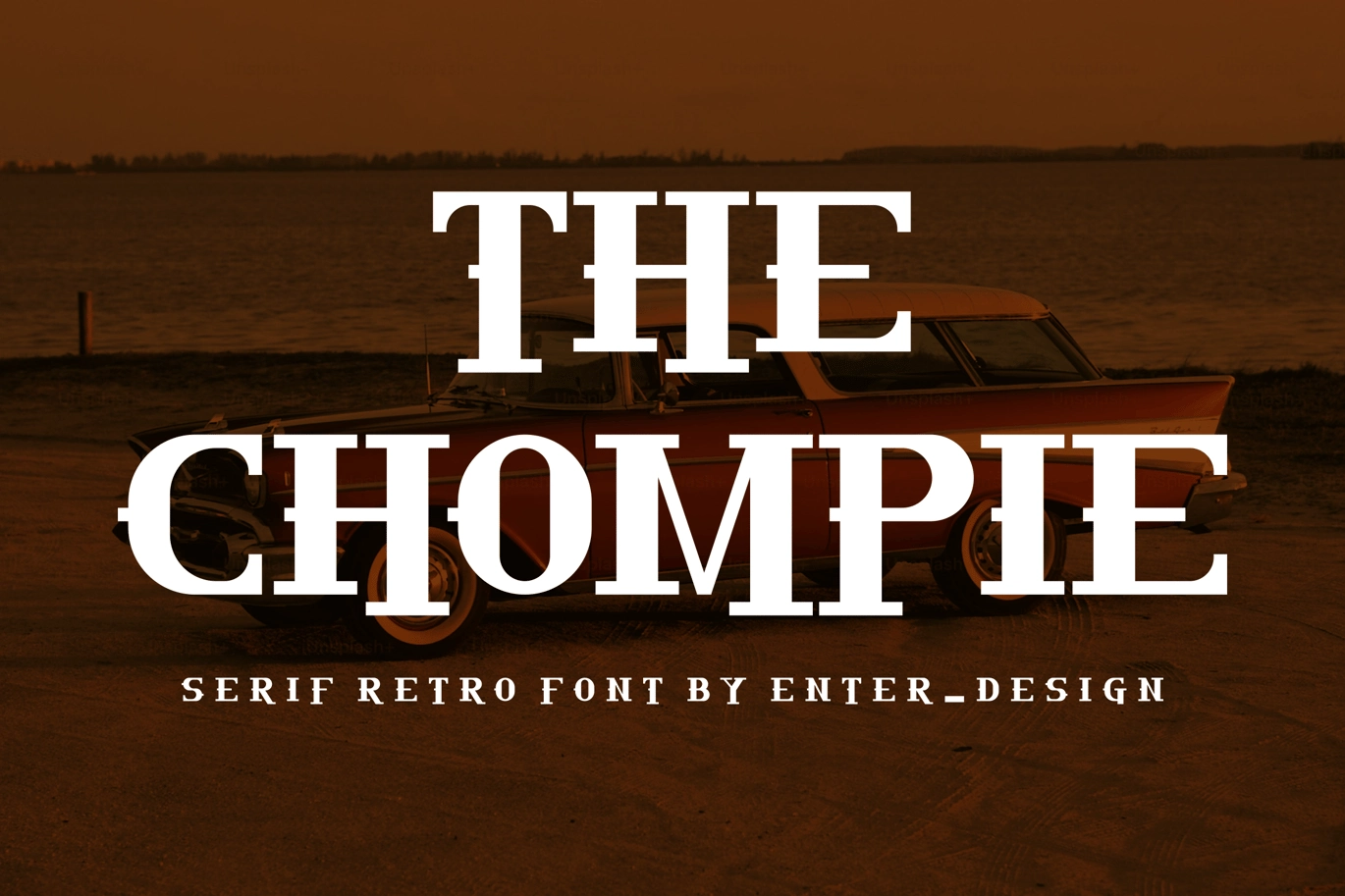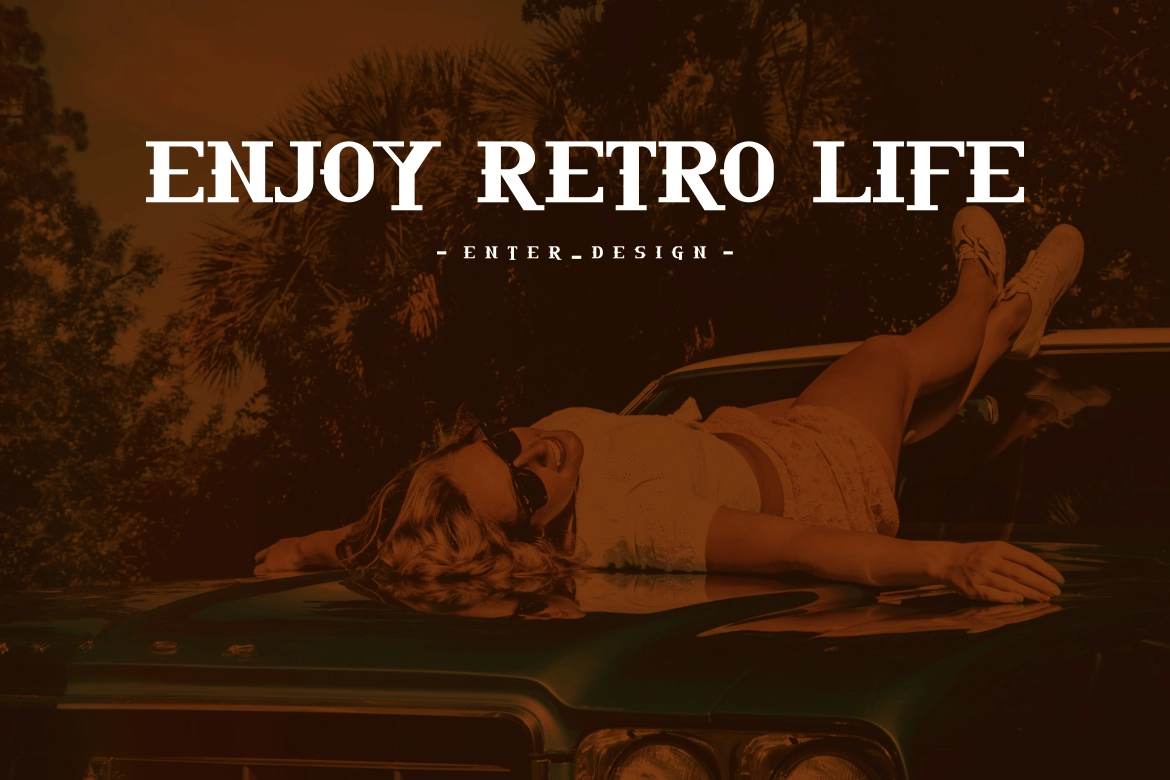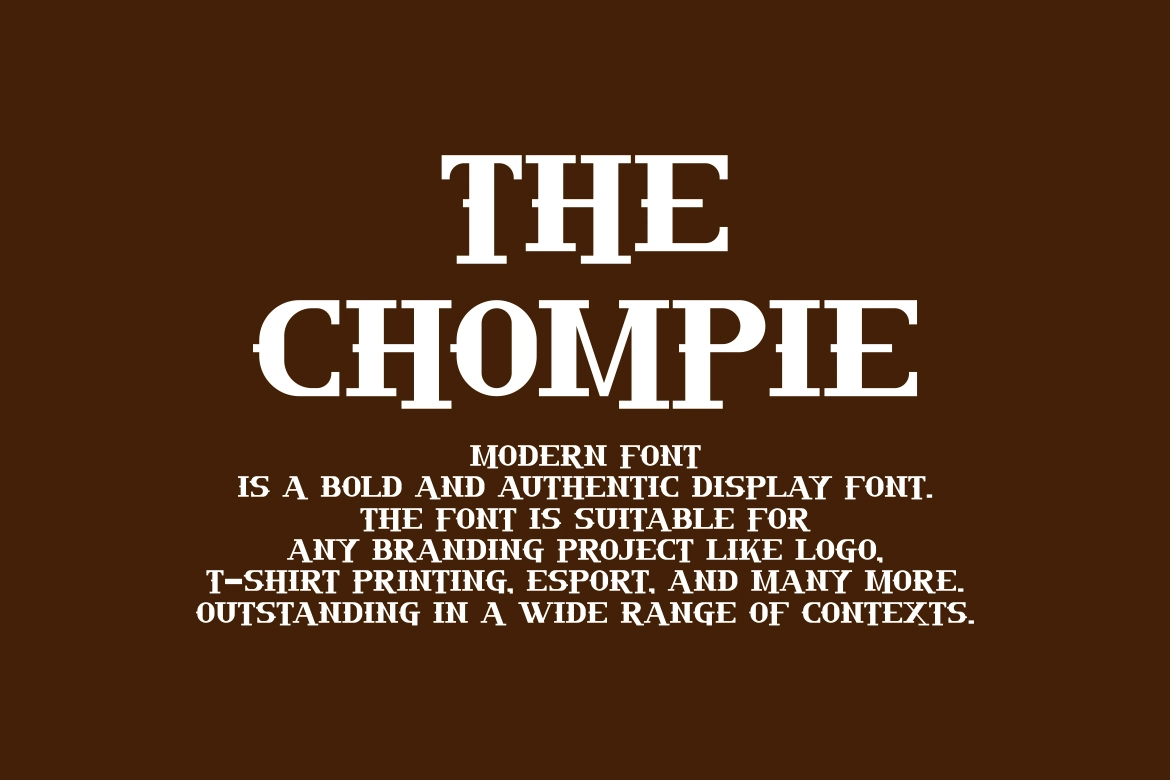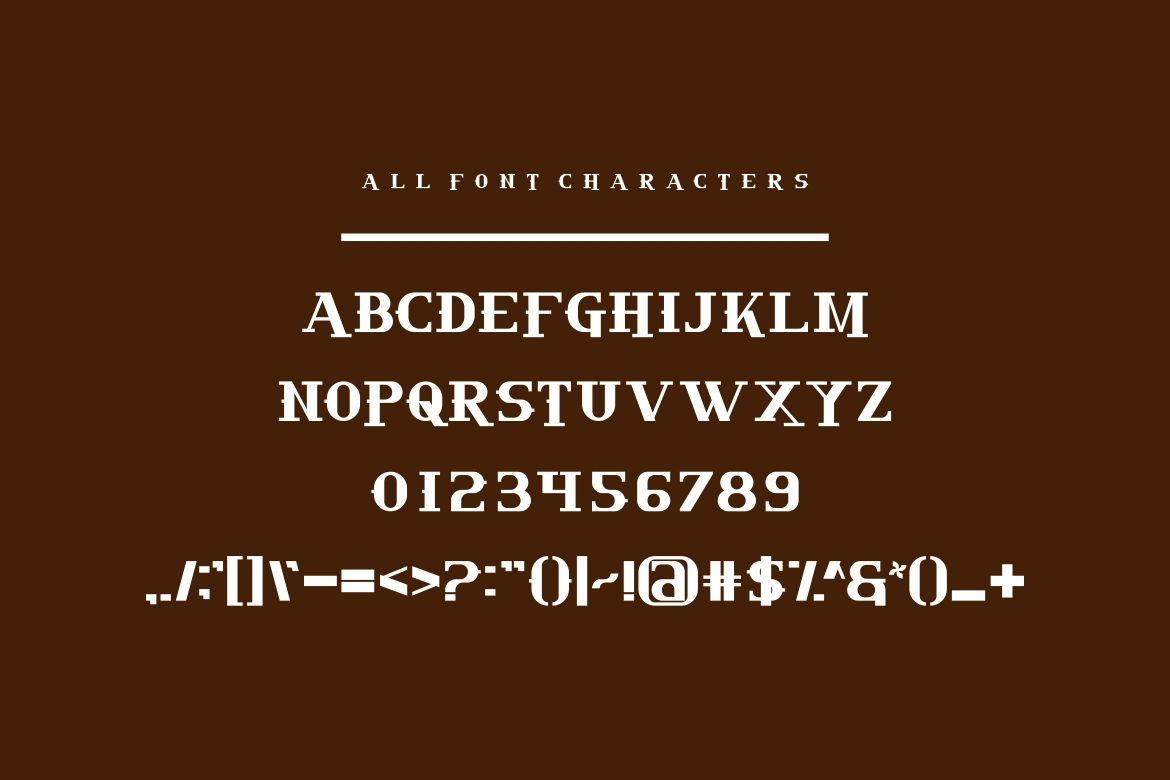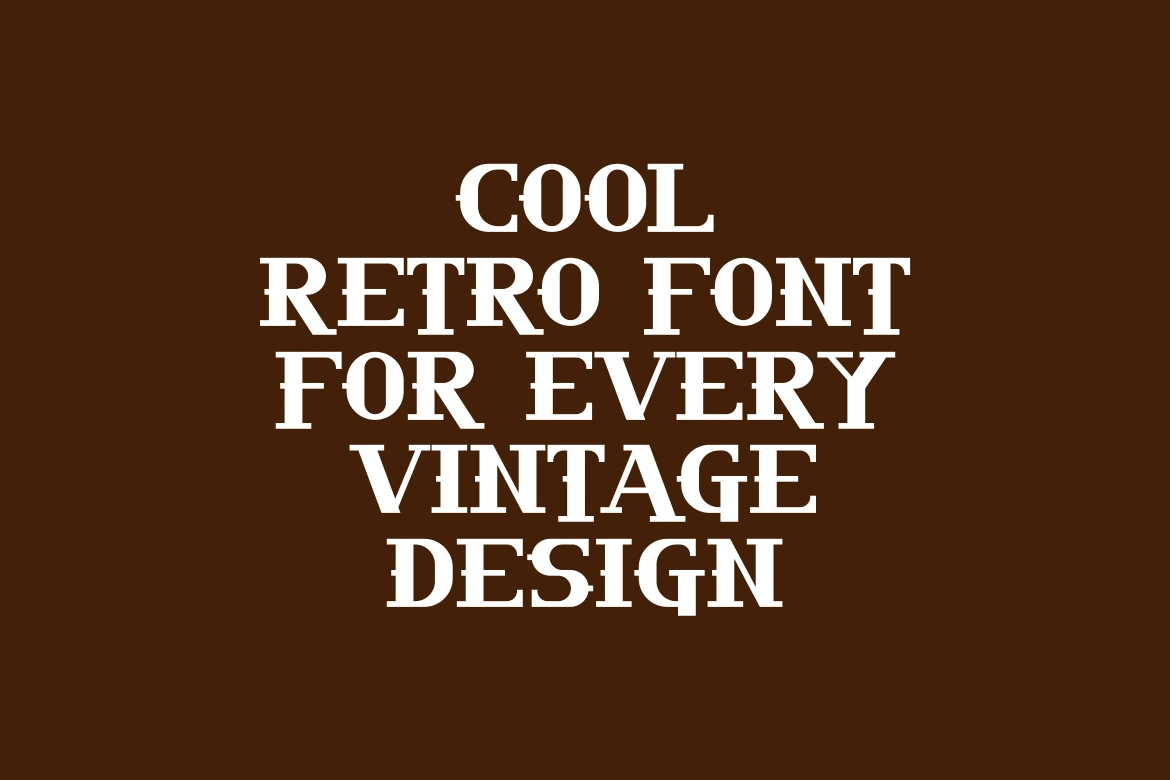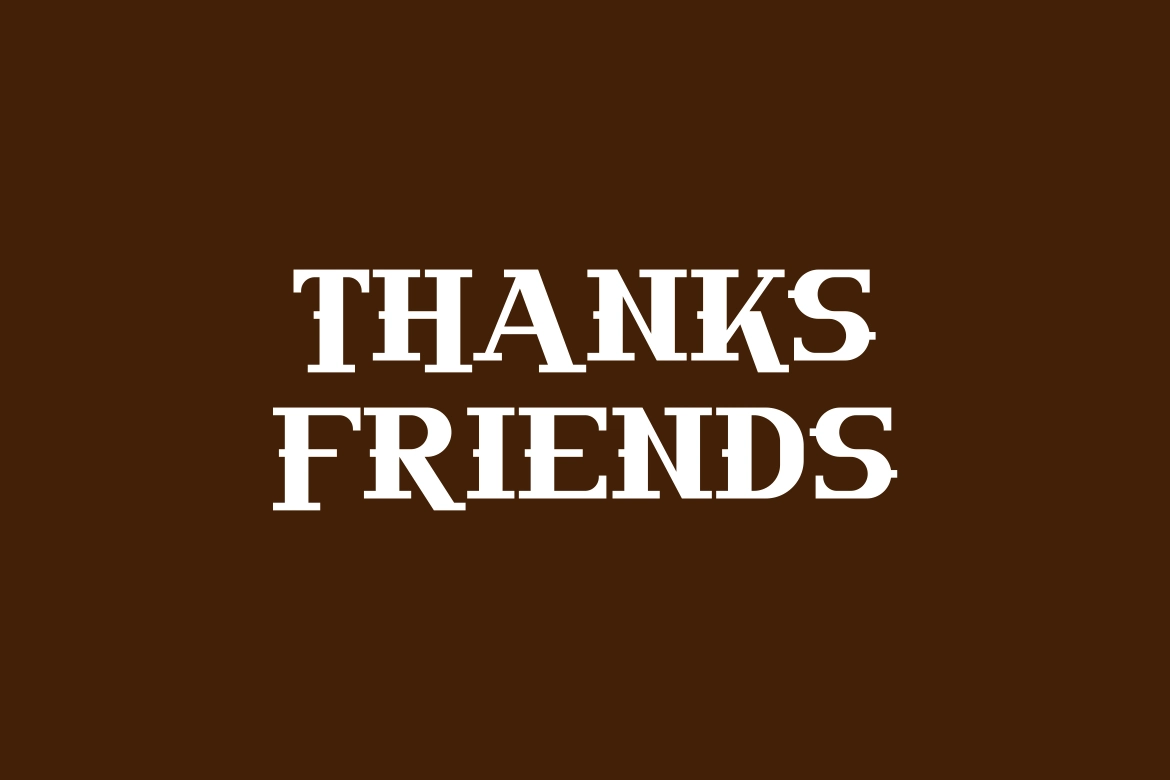
The Chompie Font
Chompie Font – Modern Bold Display Font
Chompie Font is a bold and authentic display font built for designers who want their work to stand out. With its strong, modern character shapes, this font brings energy and confidence to any project — making it a perfect choice for logos, esports branding, apparel, posters, packaging, and more.
Designed with clean, impactful lines, Chompie Font performs beautifully across a wide range of contexts, from digital branding to print design. Whether you’re crafting a gaming logo, a streetwear label, or a striking headline, this font delivers a bold, contemporary look that grabs attention instantly.
- Uppercase letters
Perfect For:
- Logo design
- Esports & gaming branding
- Apparel & streetwear designs
- Posters & social media graphics
- Packaging & product branding
- Headlines & display text